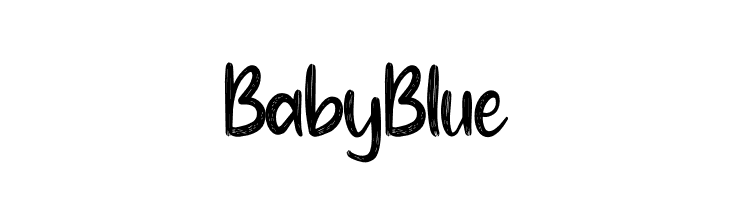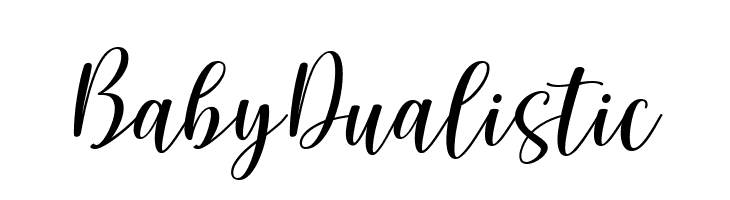
A casual, handwritten style font with a playful and informal appearance.
An elegant script font with intricate swirls and decorative flourishes.
A playful, handwritten font with smooth, rounded edges and a casual flow.
A playful and expressive handwritten font with bold, fluid strokes.
A playful, hand-drawn font with tall, narrow characters and a whimsical style.
A bold, rounded, and playful font with a hand-drawn feel.
A playful, handwritten font with a casual and dynamic style.
A cursive, handwritten-style font with smooth, flowing strokes.
A bold, geometric font with sharp angles and a blocky, futuristic style.
A dynamic script font with elegant curves and a modern classic feel.
A bold, cursive font with dynamic strokes and a modern, artistic flair.
A stylish, elegant script font with a modern handwritten feel.
A dynamic and elegant script font with fluid strokes and dramatic flair.
A bold, flowing script font with a dynamic, handwritten style.
A bold, stencil-style font with industrial and rugged characteristics.
An elegant, flowing script font with ornate uppercase and smooth lowercase letters.
A bold, decorative font with playful curves and rounded strokes.
A bold, modern font with sharp angles and smooth curves, ideal for striking designs.
A bold, decorative serif font with intricate details and flourishes.
A bold, serif font with dramatic strokes and elegant flair.
A bold, dynamic script font with interconnected letters and a strong presence.
A playful, modern font with dynamic strokes and rounded characters.
A bold, expressive handwritten font with fluid, connected strokes.
A fluid and elegant handwritten script font with smooth, connected strokes.
A dynamic handwritten font with fluid strokes and a casual, sophisticated style.
A lively, cursive script font with fluid, connected strokes and a handwritten feel.
A flowing, cursive script font with elegant, connected letters.
A bold and impactful font with strong, thick strokes and sharp edges.
A modern, light, and rounded font with a minimalist style.
A modern, rounded sans-serif font with clean lines and balanced proportions.
A clean, ultra-light serif font with a modern and elegant design.